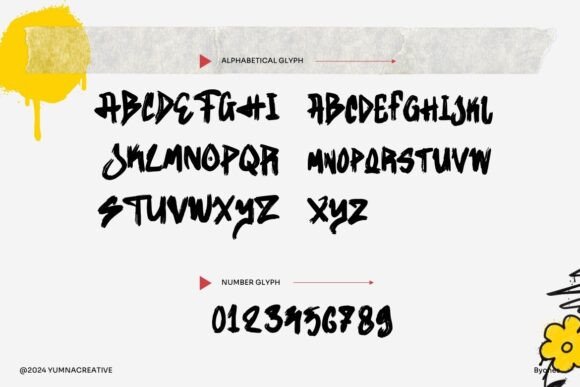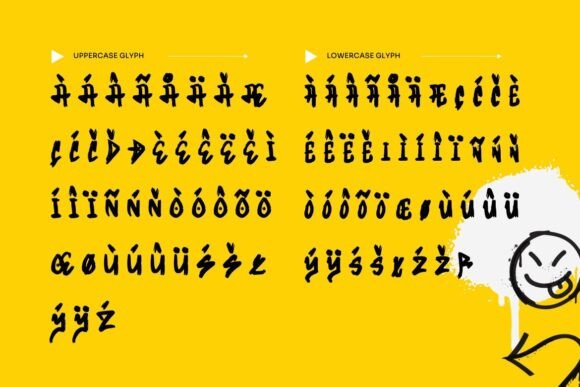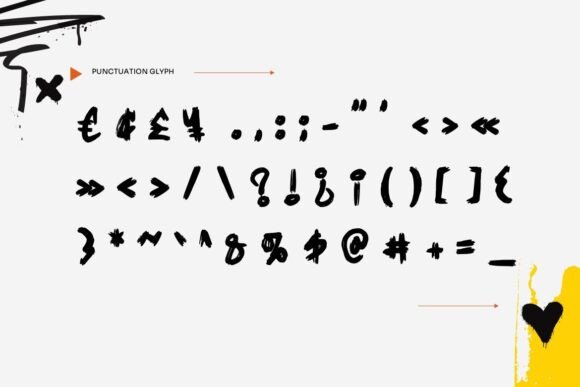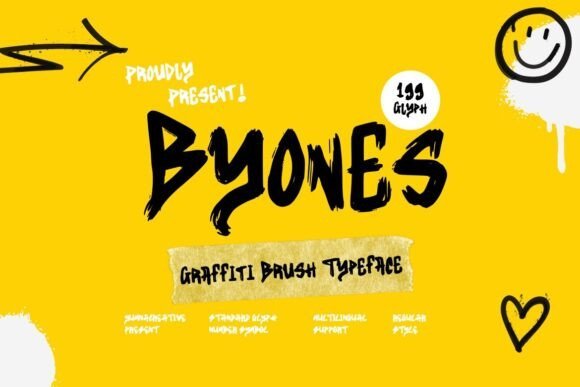
Introduction to Byones Font
Byones – Graffiti Brush is a digital brush designed for creating graffiti-style art.
It gives your artwork a bold, spray-paint look with rough, textured strokes, perfect for street art or urban-inspired designs It’s easy to use and adds a cool, artistic feel to any project.
Key Features of Byones Font
Why Choose Byones Font?
Byones Font offers exceptional quality and versatility, making it a valuable addition to your design toolkit. Whether you’re creating for personal projects or commercial use, Byones Font delivers professional results.